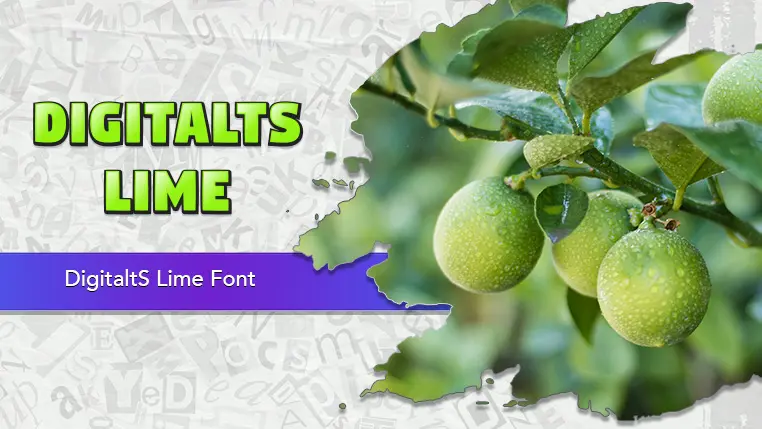
The DigitaltS font family may be ideal for you if you enjoy working on an artistic design project. The lively, expressive look of this typeface, which was created by Gluk Fonts, makes it ideal for Headlines and Banners. It's an excellent choice for a logo for a brand with a fun, modern, or digital theme, such as a tech company, a children's brand, or a creative agency. The font's vibrant colors and fun personality are ideal for creating engaging posts and stories on social media. It can add a distinctive and modern touch to product labels, especially for things like candy, snacks, or other consumer goods. and other light-hearted visual projects.
Lime, Orange, Plum are the three primary font styles of the DigitaltS font family. You may build dynamic, visually appealing text layouts with the distinct flair that each style offers. With crisp, readable lines and a relaxed tone.